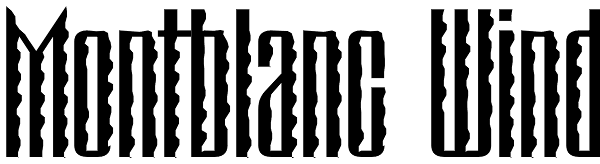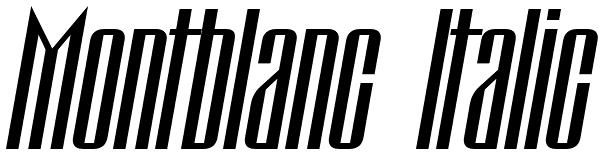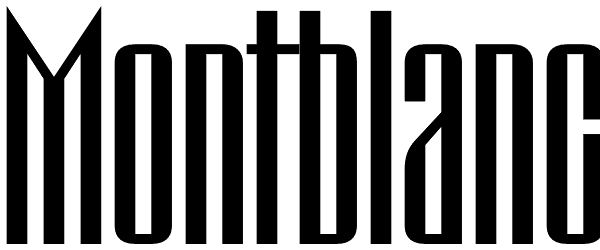
Montblanc
An extra compressed typeface designed at ParaType in 1993 by Alexander Tarbeev. Decorative styles were added in 1996. For use in advertising and display typography.